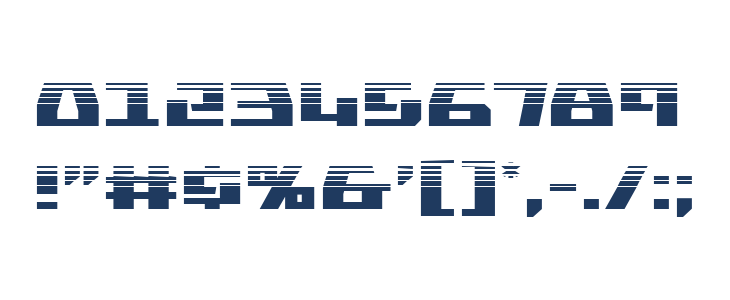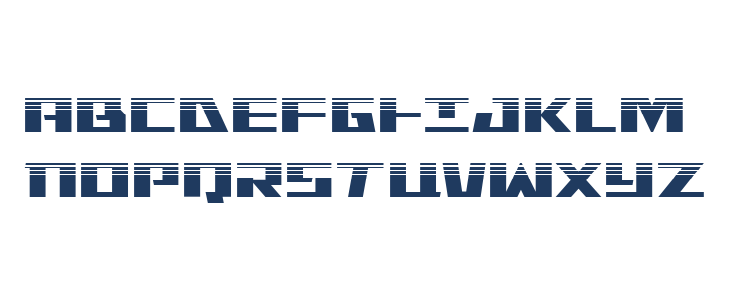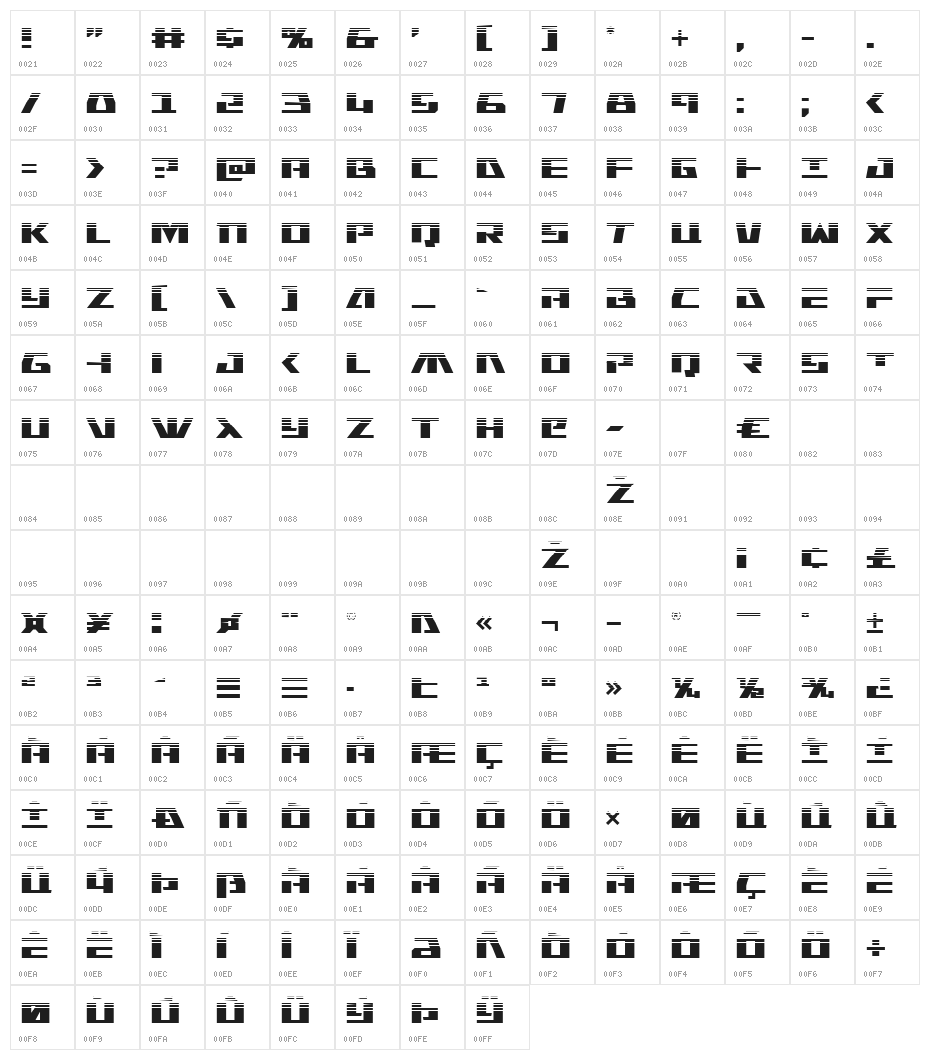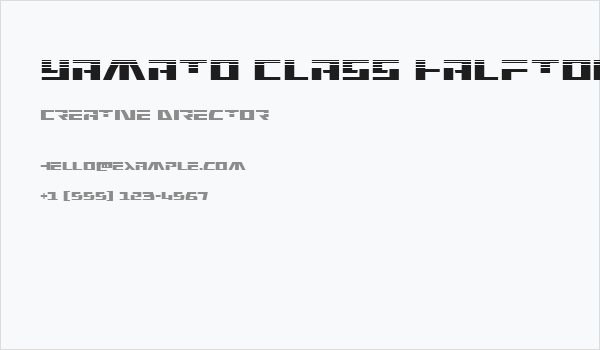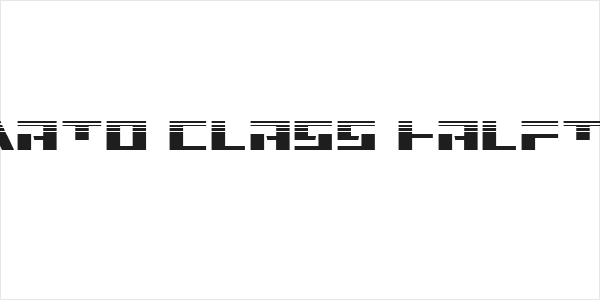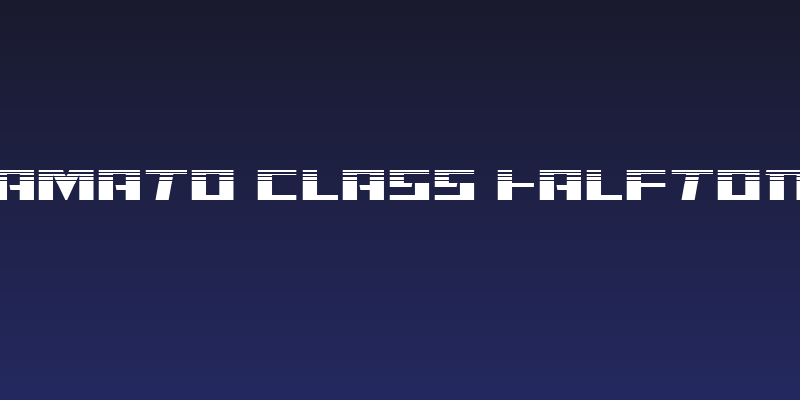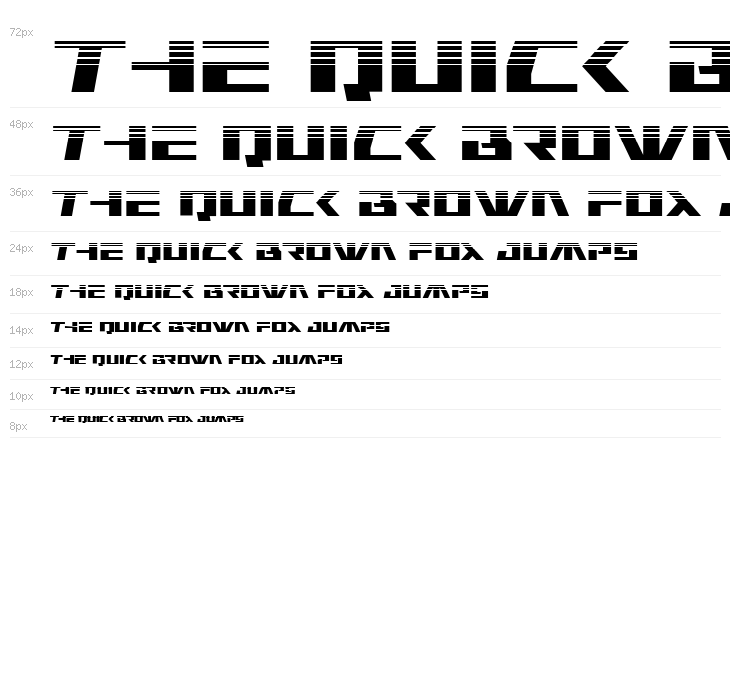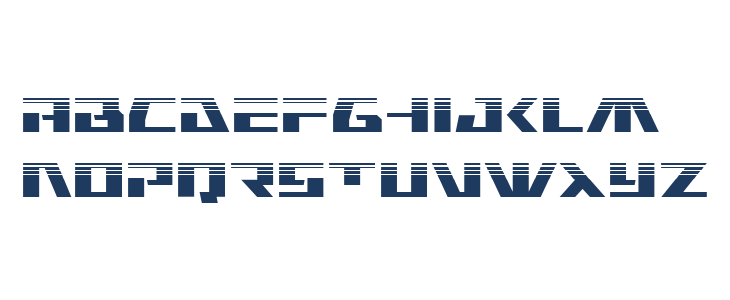
Yamato Class Halftone Font
Yamato Class Halftone Description
A geometric, futuristic display font with bold, blocky letterforms and distinctive horizontal stripe patterns cutting through each character, creating a halftone effect. The characters are uppercase only, with sharp angles and a mechanical, digital aesthetic.
| Overall Style | Futuristic, Decorative, Geometric |
| Use Case | Headlines, Logos, Posters, Display text |
| Proposed Projects | Posters, sci-fi branding, video game titles, tech event graphics, futuristic logos. |